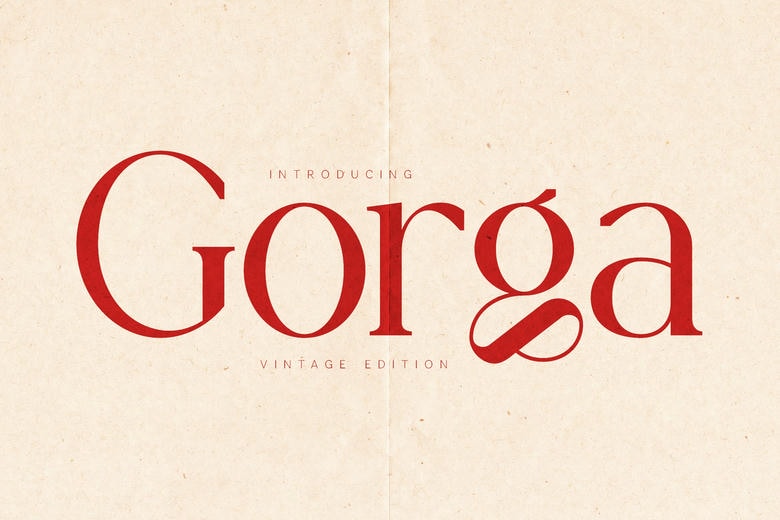
Gorga Serif Font
Gorga Vintage Edition is a sophisticated vintage Serif font taking inspiration from traditional book typography, editorial design and timeless print design. With beautiful letterforms, balanced contrast, and soft traditional details, Gorga offers a warm and authentic feel with heritage design roots.
Gorga Vintage Edition is ideal in editorial design, magazines, book covers, branding, logo, invitations, packaging and storytelling projects without being stiff or harsh. It has a traditional design and soft curves that render it perfect in both exhibition and typographic elegant work.
The Gorga Headline font is beautiful because it can be used in a contemporary setting. It is a beautiful hero element of websites or tall poster designs. Gorga Headline typeface produces the feeling of power and accuracy when typed in uppercase.
It is best matched with bulky, broad serifs to form an effect of a dynamic contrast or with spacious, heavy-white-space layouts to give out the gallery appearance. It would be a perfect fit in luxury packing, a high-tech event invitation, and a smooth digital interface, introducing a high-quality, classy aesthetic to any screen. Its geometric purity makes sure that you convey your message in a poised and contemporary manner.